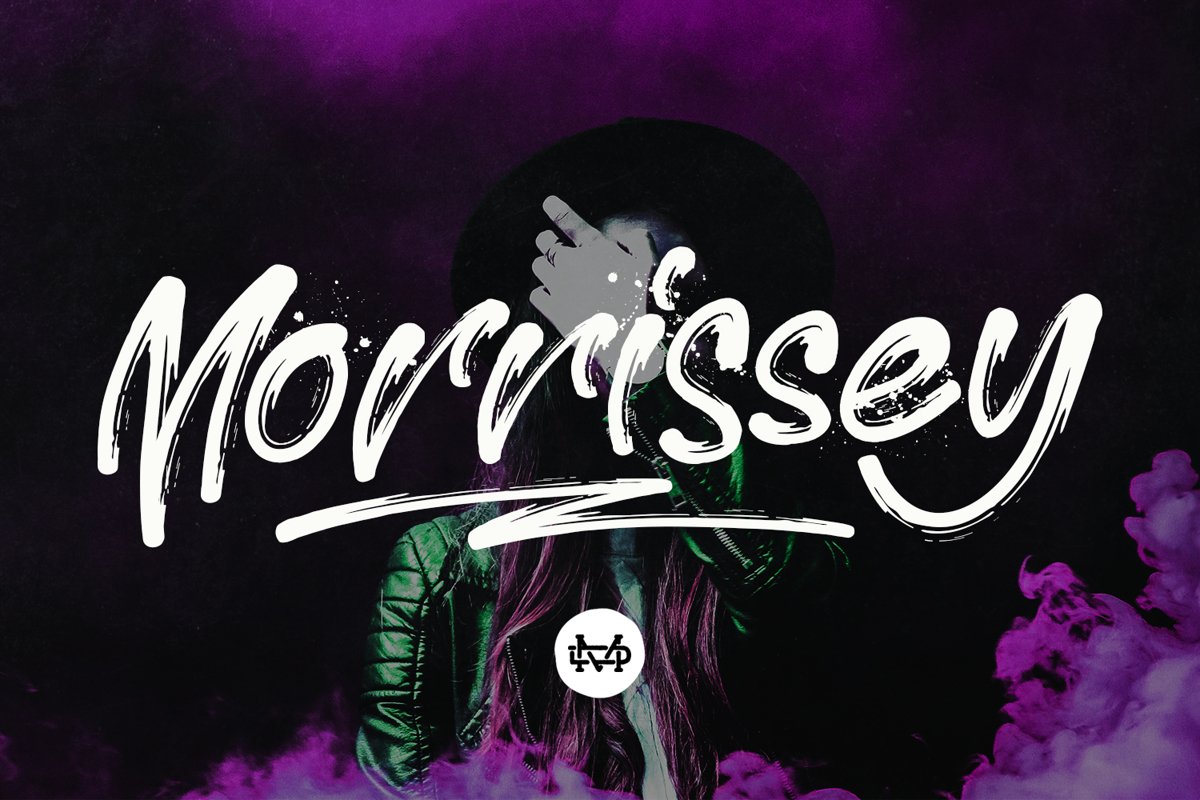
Morrissey
Morrissey Swashes
Morrissey
Introducing Morrissey
Morrissey is a handwritten Brush. This font perfect for poster design, book covers, merchandise, fashion campaigns, newsletters, branding, advertising, magazines, greeting cards, album covers, and quote designs and more.Whats Included?